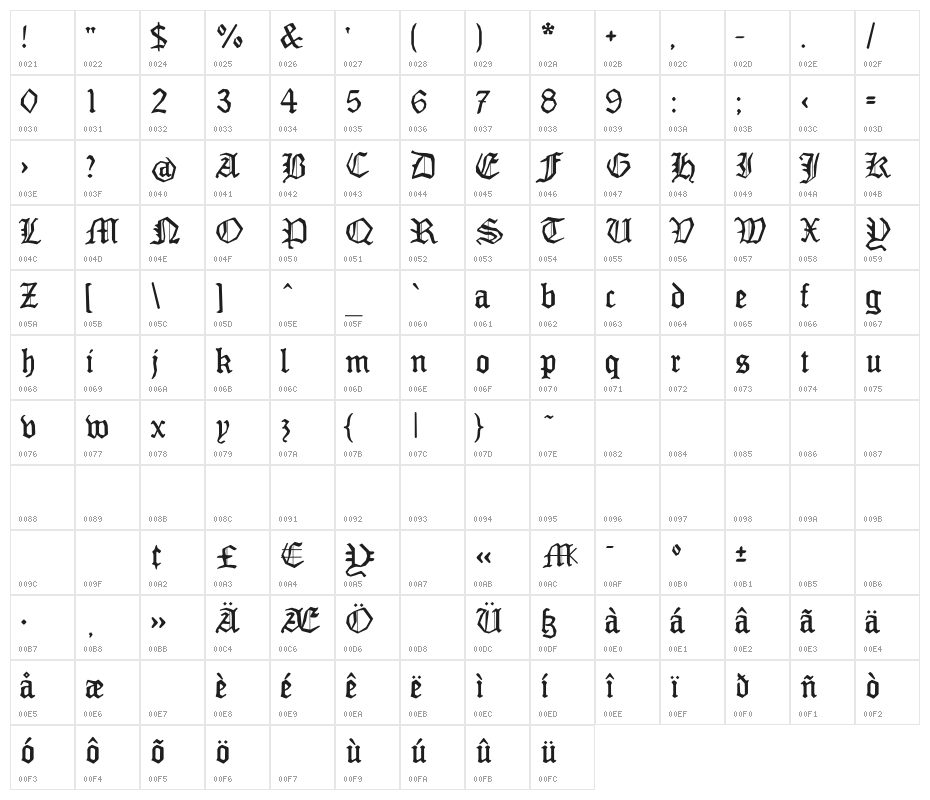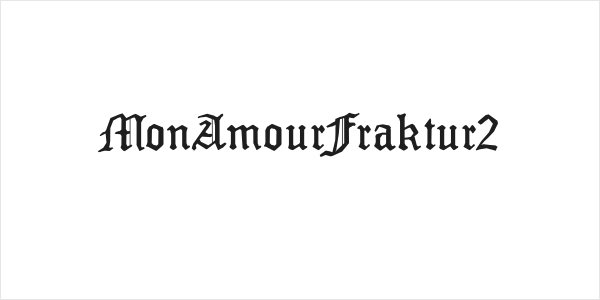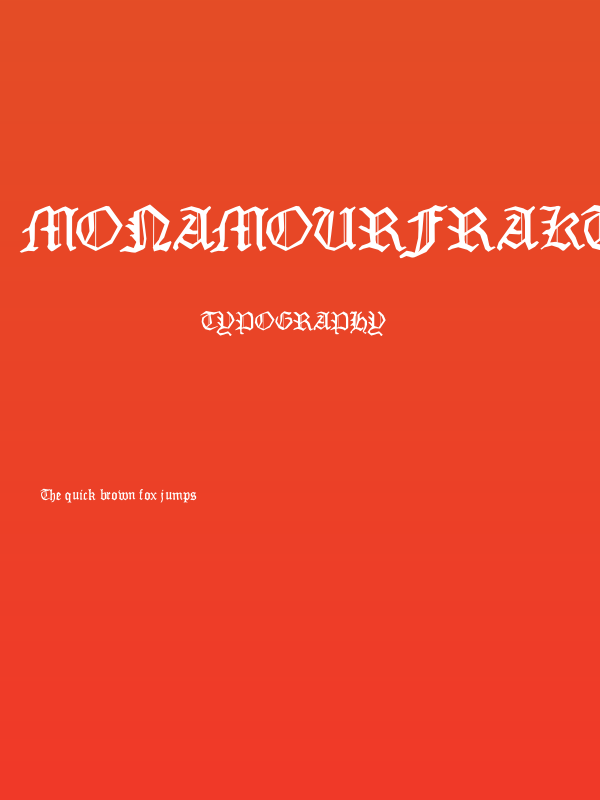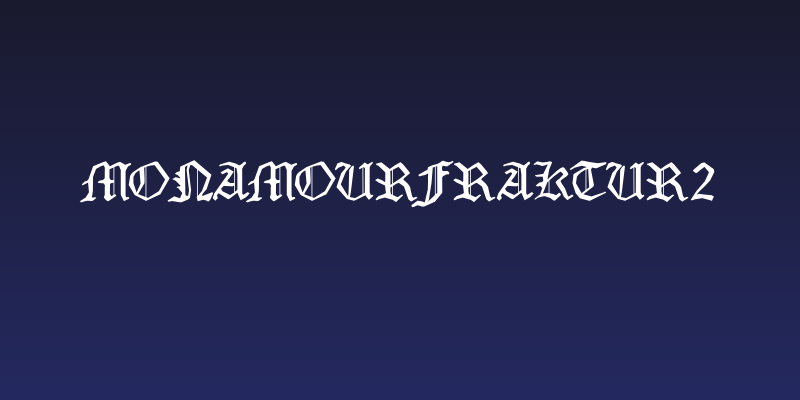
MonAmourFraktur2 Font
MonAmourFraktur2 Description
This font exhibits a classic blackletter style, characterized by its ornate and intricate design. The letters are bold and angular, with sharp edges and a medieval aesthetic. The uppercase letters are particularly elaborate, featuring decorative flourishes and a strong vertical emphasis. The lowercase letters maintain the same level of detail, with a consistent stroke weight that adds to the font's bold appearance. Numbers and special characters are designed to match the overall style, ensuring a cohesive look across all text elements. This font is ideal for projects that require a historical or gothic touch, offering a dramatic and eye-catching appearance.